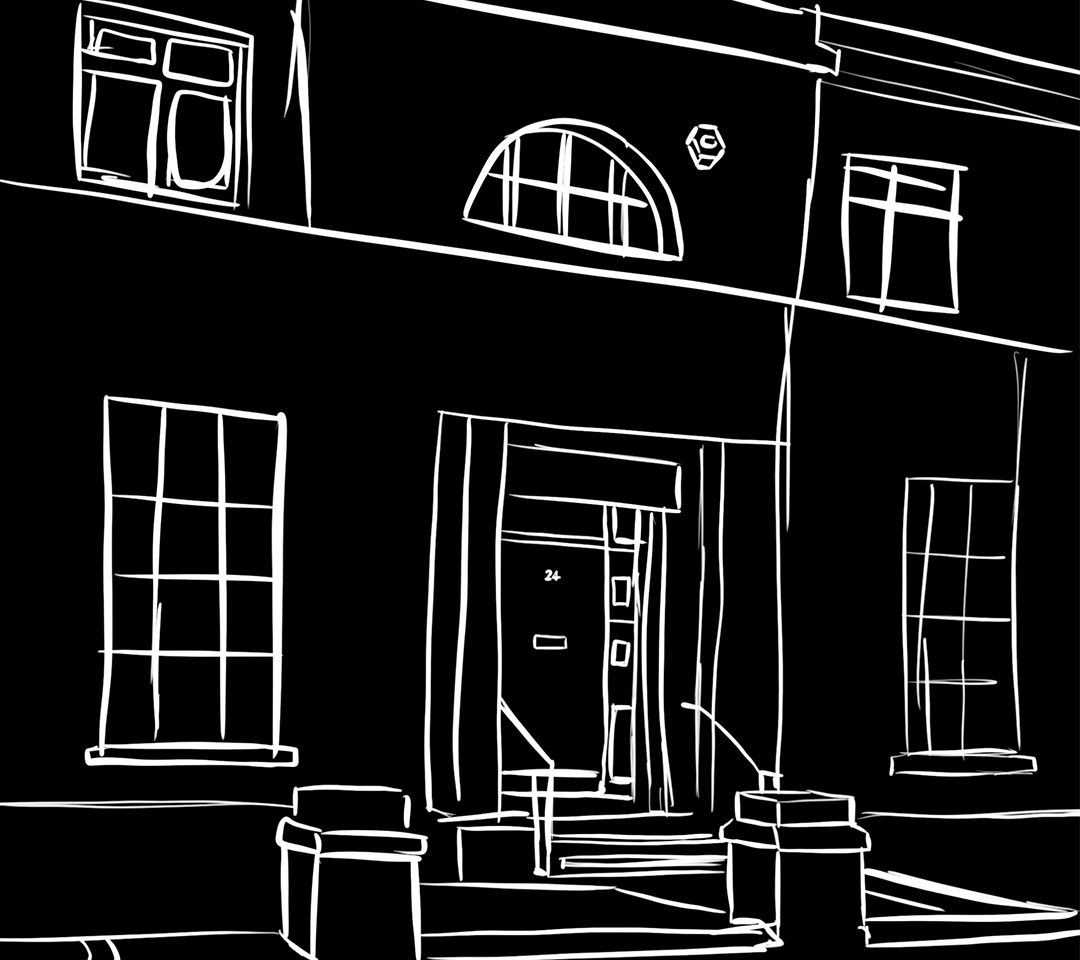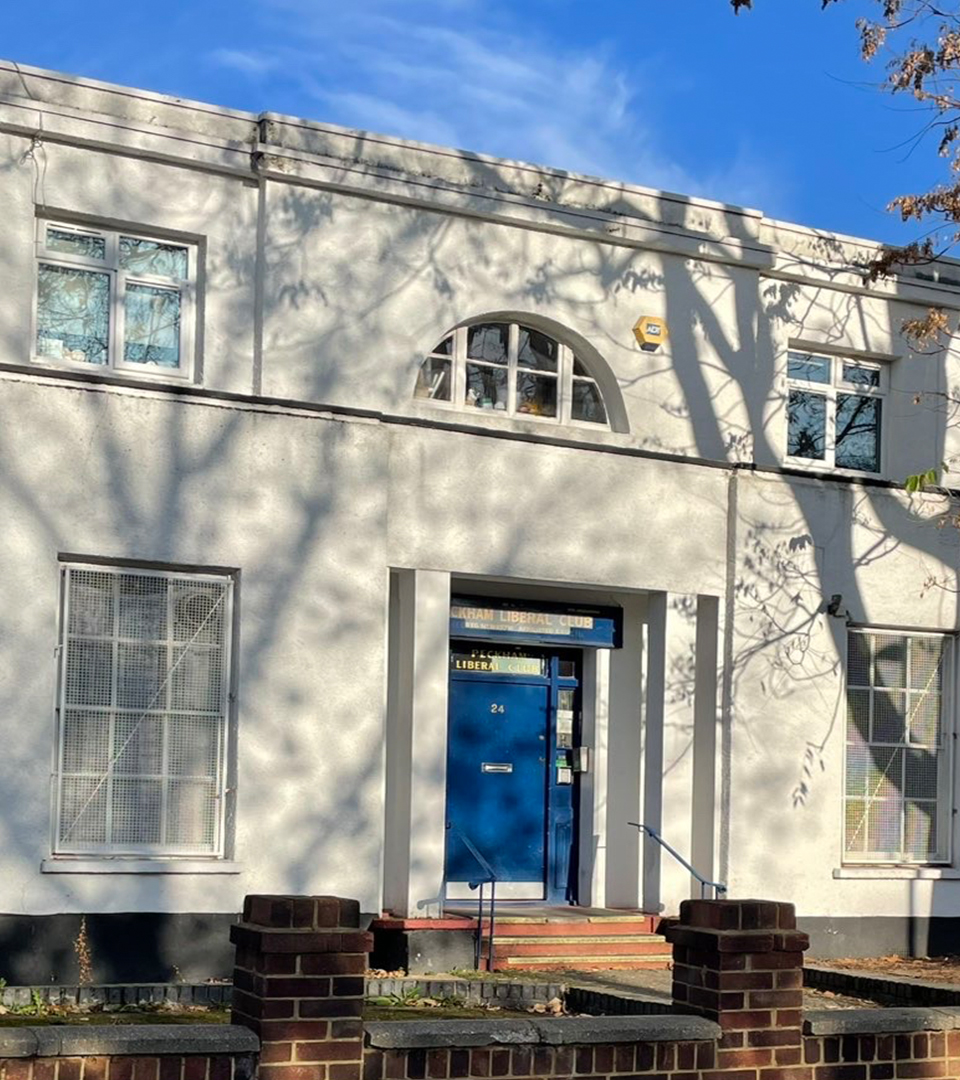
Liberty was inspired by the Peckham Liberal Club, a working men's club that has also served as a popular film location. As the building is members-only, I was unable to access its interior directly. This sense of partial visibility informed the design of the typeface, which features deliberately faint and fragile details. Its obscured vintage character influenced the calligraphic qualities of the letterforms. I aimed to create a design that evokes the feeling of a film title, paying homage to the building's cinematic associations and its original construction in 1911.